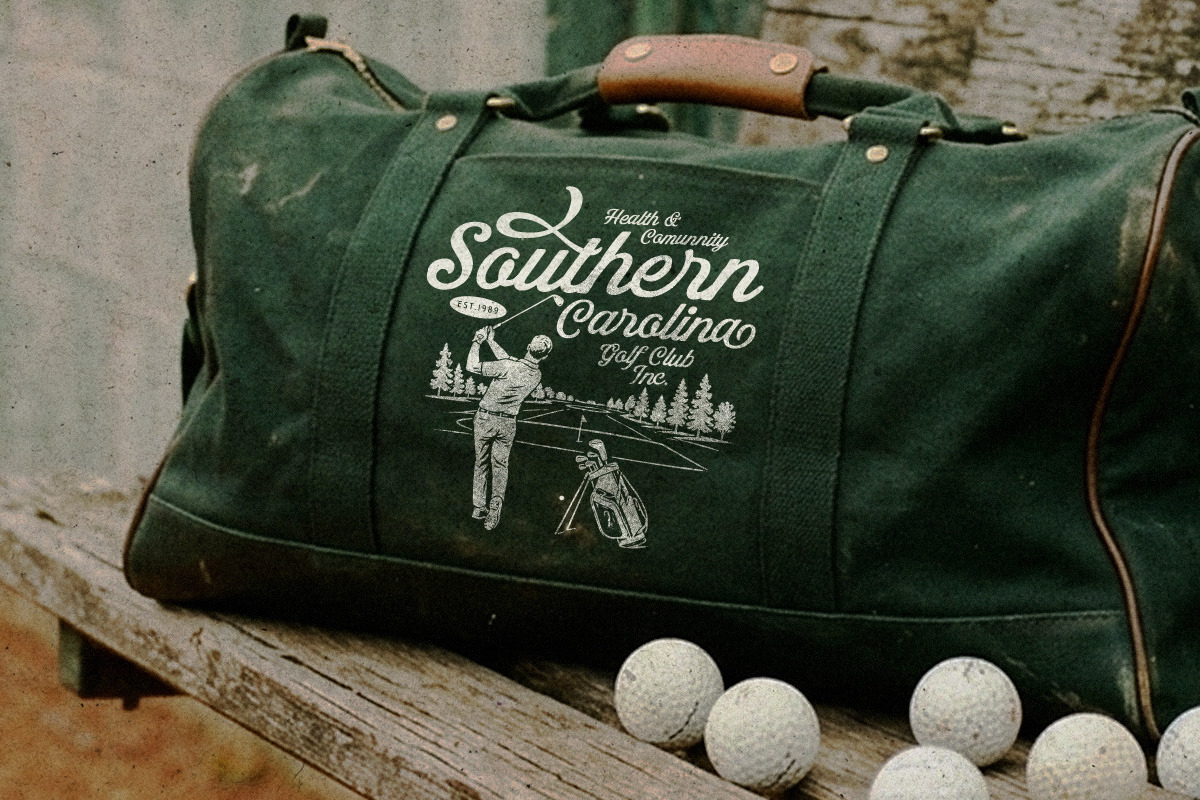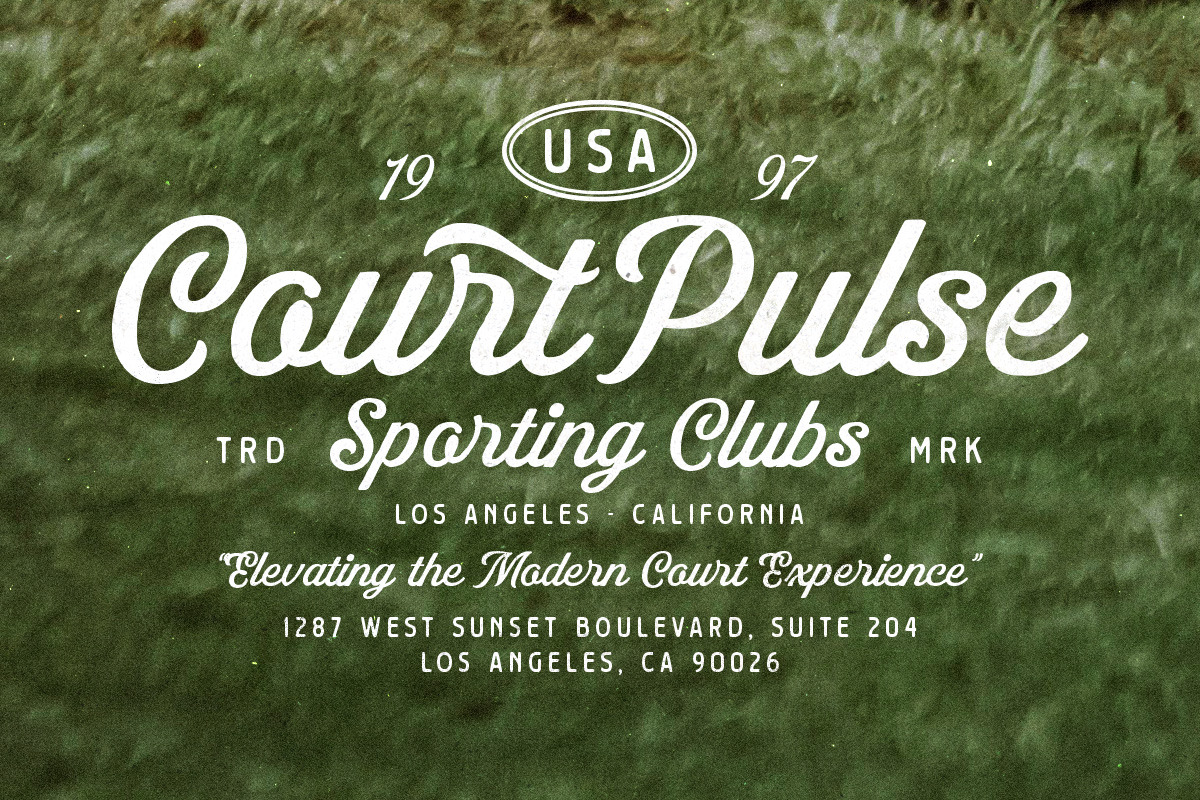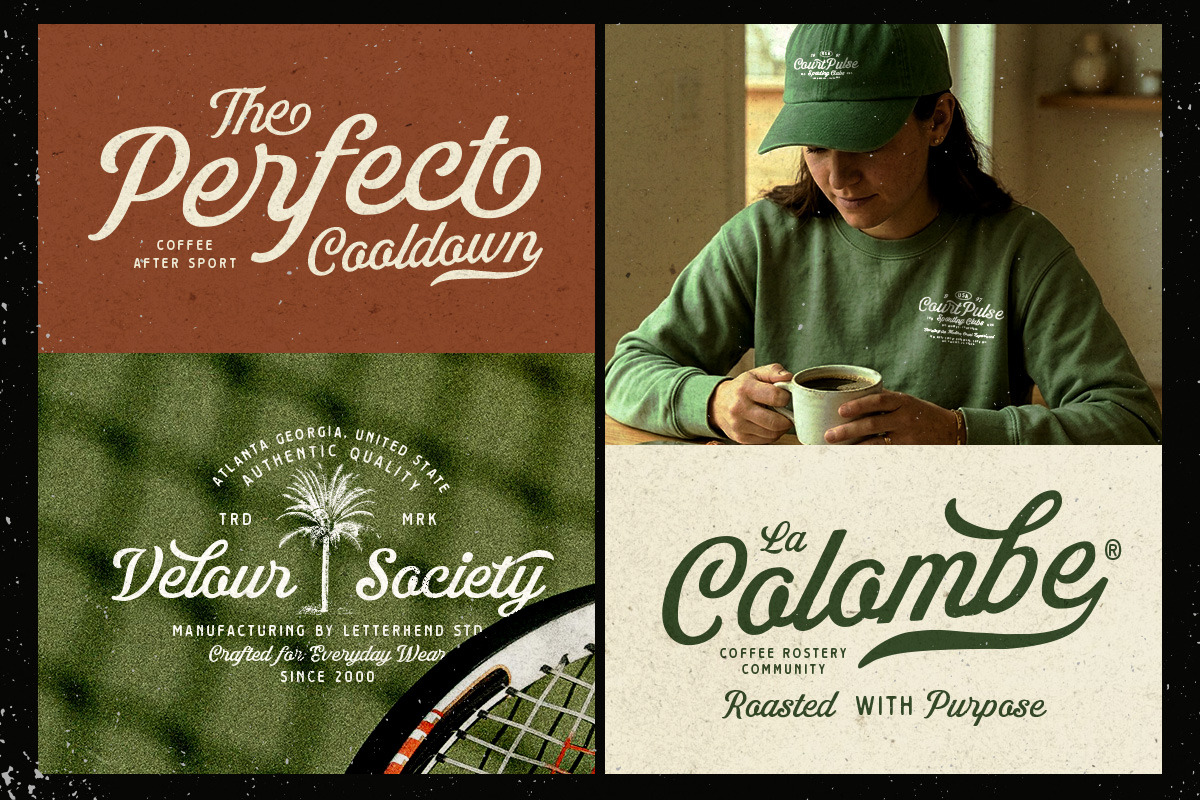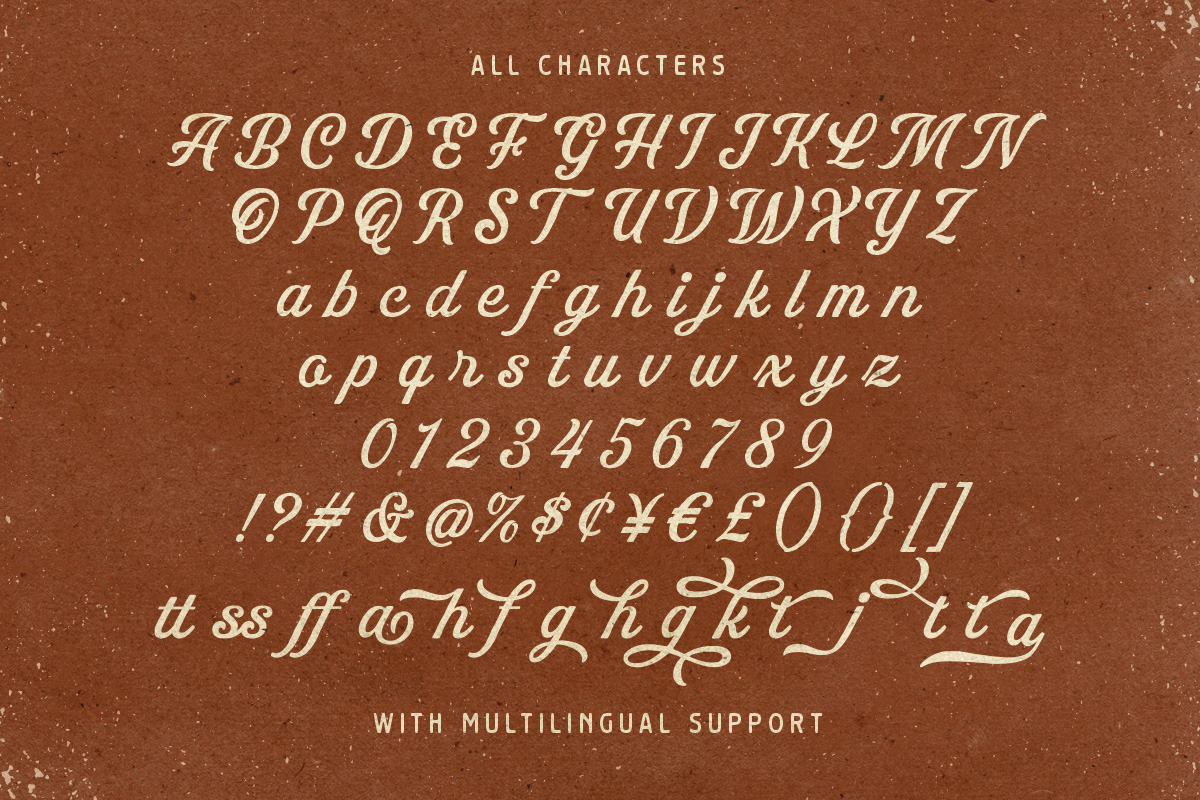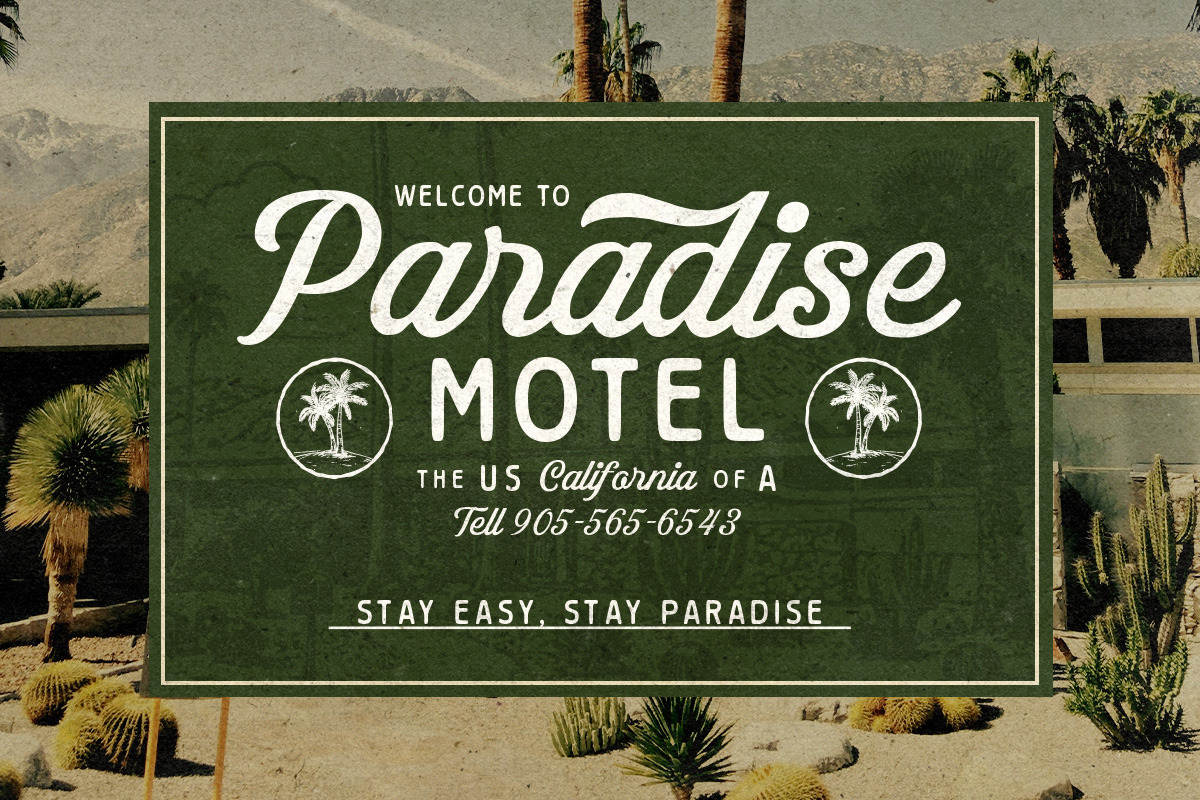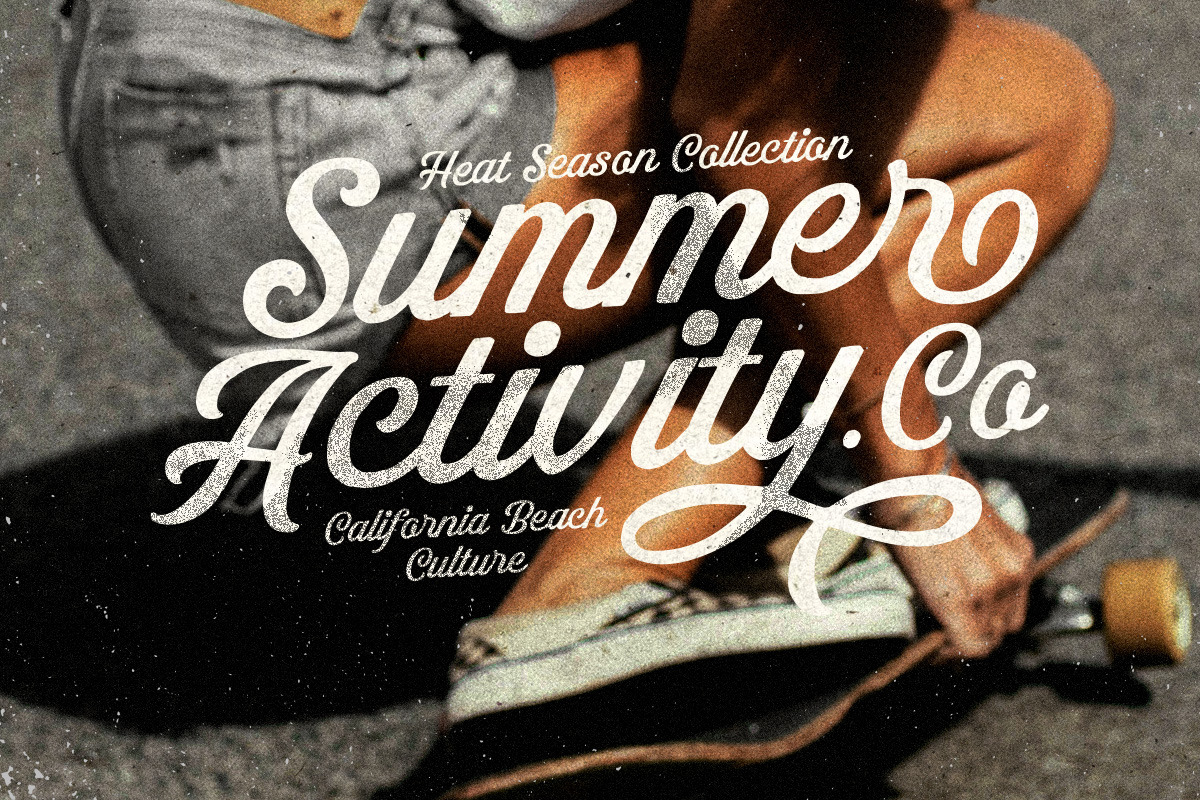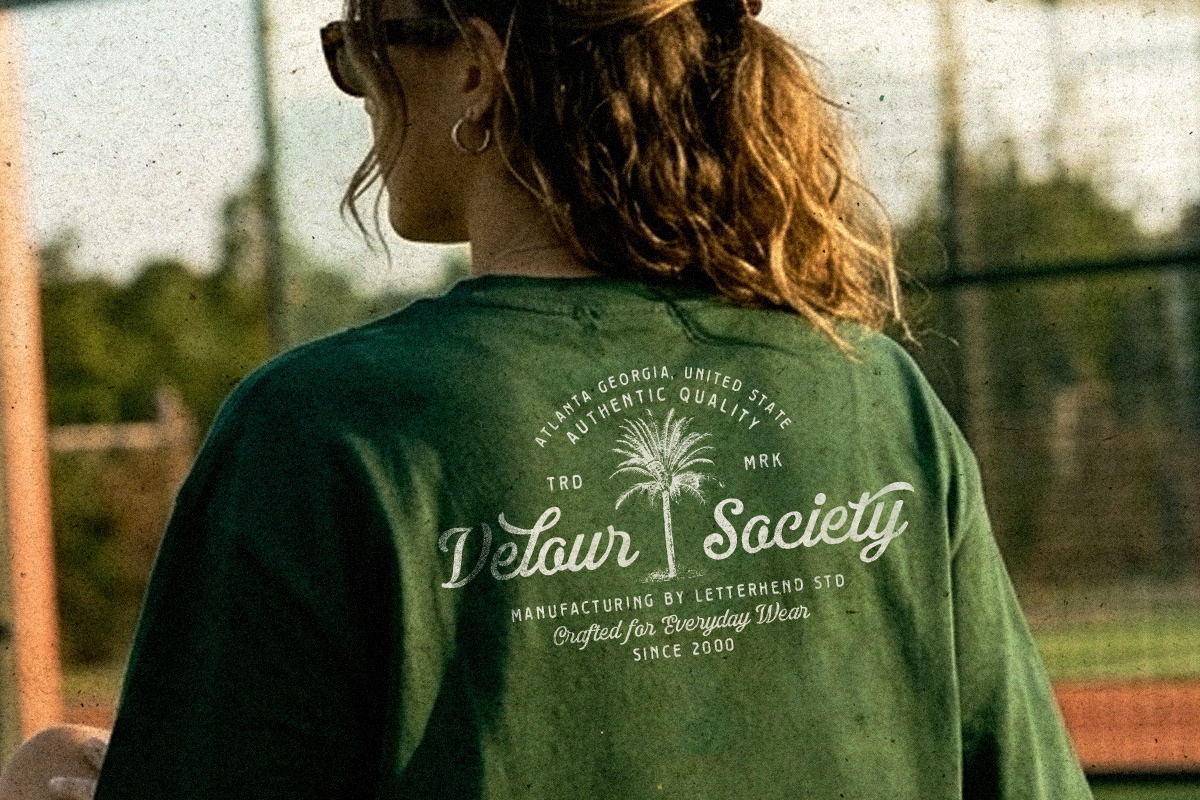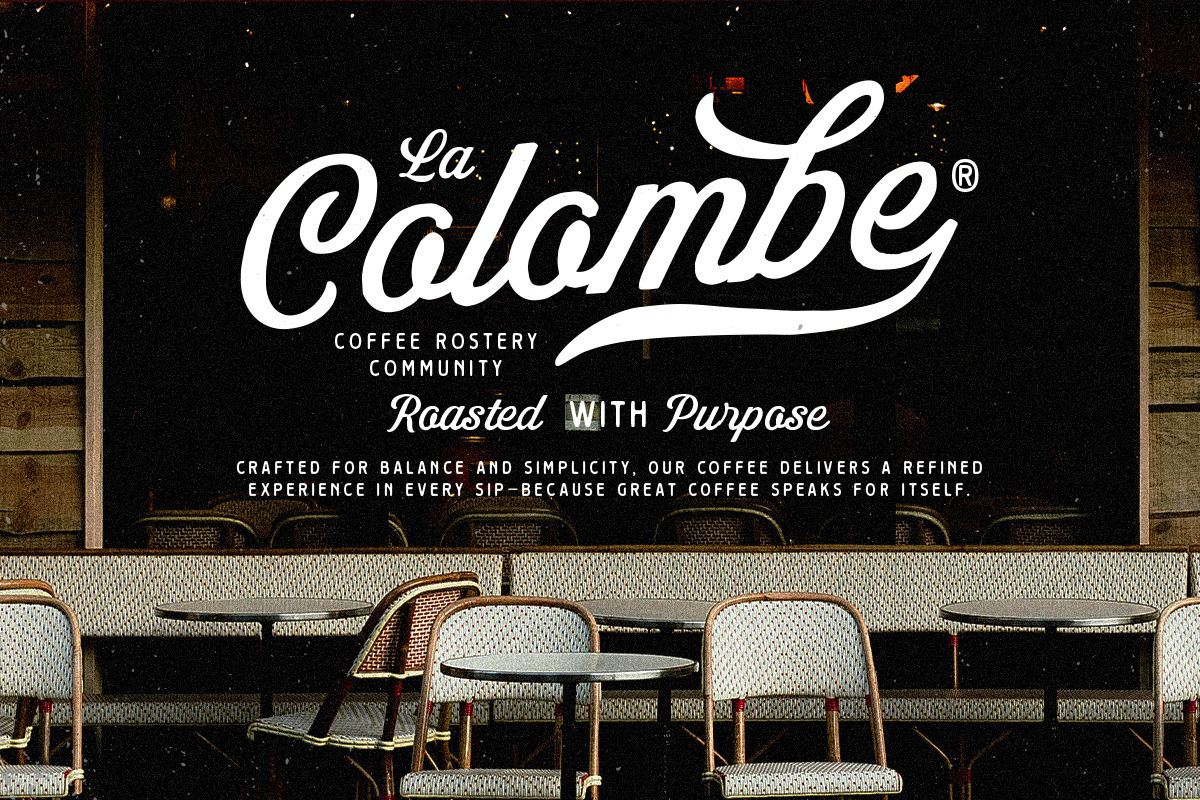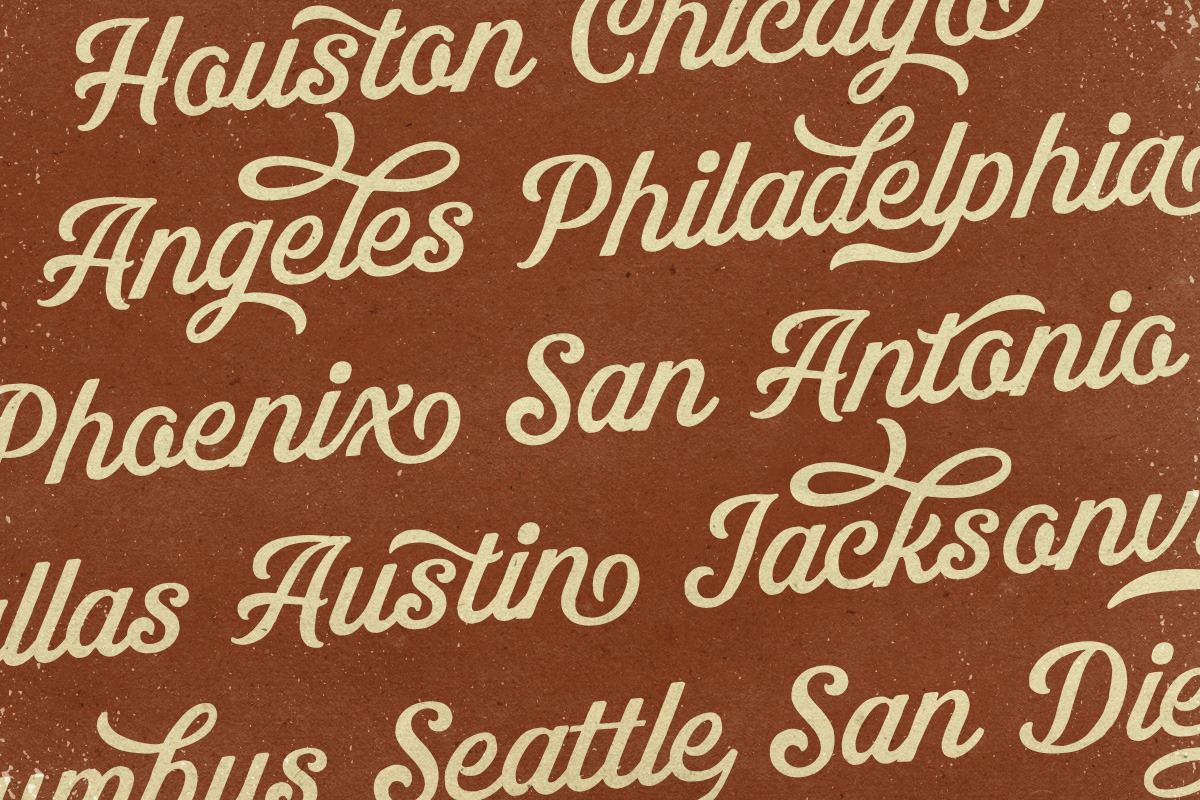
Mestain Script
Mestain is a handmade display script font crafted with smooth vintage curves, bold flowing swashes, and a warm retro spirit that instantly brings old-school charm into your designs. Inspired by classic signage, golf club aesthetics, and timeless lettering styles, Mestain comes with carefully drawn details that feel relaxed yet stylish at the same time.
Uppercase & lowercase
Numbers and punctuation
Alternates & Ligatures